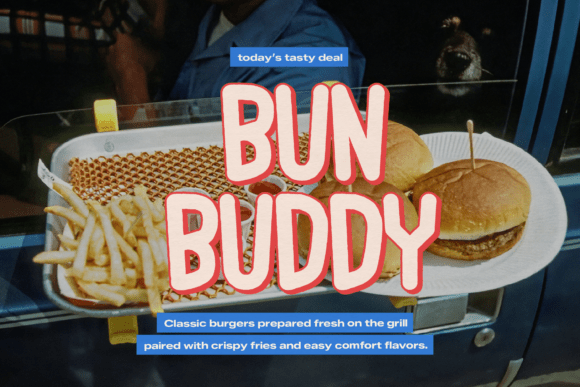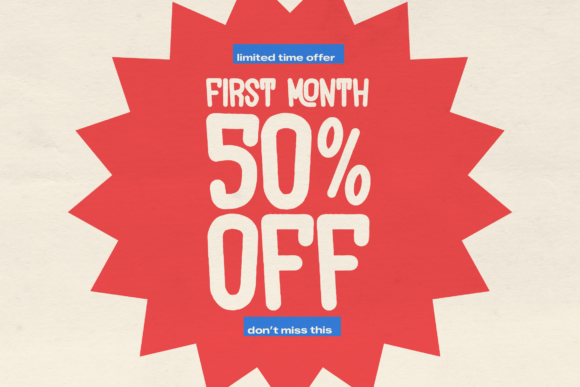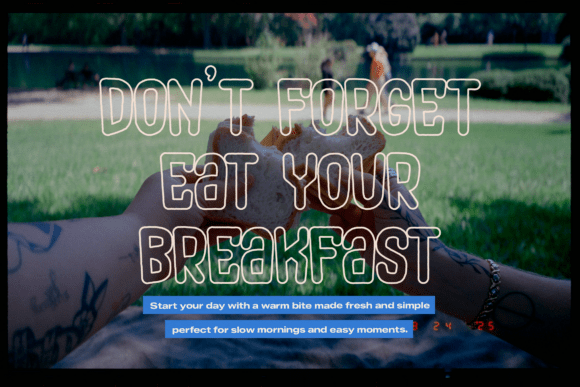
Introduction to Mega Champs Font
Have you ever been stuck on a creative project, searching for that perfect font to elevate your design and leave a lasting impression? For designers, finding the right font can make all the difference between a good design and a great one. Imagine finally stumbling upon a font that embodies the energy and excitement of a winning moment – that’s exactly what the Mega Champs Font offers.
With its bold, energetic, and high-character display typeface, the Mega Champs Font is designed to stand out with professional ease. Whether you’re working on a free download design resource or a high-quality creative project, this font is sure to bring a champion-level visual presence to your work.
From sports-themed branding to playful game interfaces, the Mega Champs Font is a versatile design solution that’s perfect for a wide range of creative applications – including those with transparent backgrounds.
Key Features of Mega Champs Font
- High-quality design resource for creative projects, ideal for modern and bold typography.
- Features a transparent background, allowing for easy layering and composition in design projects.
- Designed to be highly legible at various font sizes, making it perfect for titles, headings, and body text.
- Unique characteristic: Mega Champs Font’s bold and playful style makes it an excellent choice for sports, gaming, and action-themed creative projects.
Honest Review: Mega Champs Font
As a designer, I’m always on the lookout for new and exciting resources to add to my toolkit. Recently, I came across the Mega Champs Font, and I was eager to give it a try.
First, the good stuff: the Mega Champs Font is incredibly versatile and works well for a variety of creative projects, from branding to editorial content. ✨ I love the modern, bold aesthetic, which is perfect for grabbing attention and making a statement. The font also comes in a range of styles and weights, making it easy to customize to suit your needs.
One of the standout features of the Mega Champs Font is its high quality and crispness, even at larger sizes. ✨ This makes it ideal for signage, posters, and other applications where clarity is key. Additionally, the font has a transparent background, which allows for seamless integration with other design elements.
Now, the not-so-good stuff: while the Mega Champs Font is generally high quality, I did notice some limitations when it came to smaller text sizes. ⚠️ At these sizes, the font can become a bit pixelated and difficult to read. Additionally, some users may find the font’s bold aesthetic to be overwhelming in certain contexts.
Overall, I’m impressed with the Mega Champs Font and would definitely recommend it to designers and creatives looking for a high-quality, versatile font. Just be mindful of the limitations, especially when working with smaller text sizes.
- Works well for branding, editorial content, signage, and posters
- High-quality, crisp, and clear at larger sizes
- Transparent background for seamless integration
Mega Champs Font is ideal for a variety of creative projects, including:
- Sporting events and tournaments
- Business branding and marketing materials
- Education and academic projects